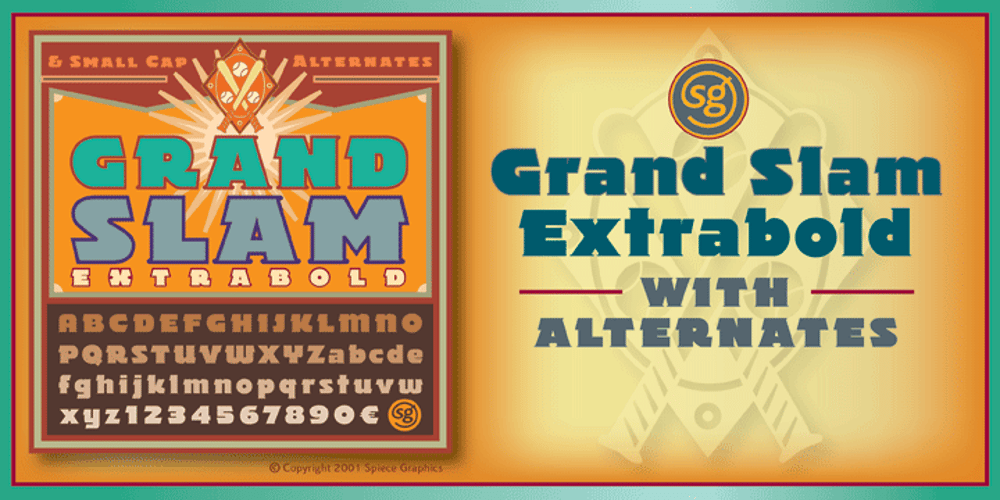
Grand Slam SG Font Family was designed by Jim Spiece and published by Spiece Graphics. Grand Slam SG contains 1 styles and family package options. Grand Slam is based on an old cardwriting style known as Poster Gothic. This dynamic letterstyle was used in the heyday of the Hollywood movie poster because of its powerful and snappy appeal. The face is of uniform thickness and made as wide as possible without interfering with legibility. Its vertical strokes seem to be thickened slightly where normal serifs would be. It is interesting to note that another group of tiny little serifs populate the entire design. Grand Slam comes with a complete set of alternates including small caps and small figures. A lowercase has been added for greater versatility. Grand Slam is now available in the OpenType format. In addition to small caps, lining figures, oldstyle figures, petite lining figures, and swashes, this expanded OpenType version contains some new stylistic alternates. These advanced features work in current versions of Adobe Creative Suite InDesign, Creative Suite Illustrator, and Quark XPress. Check for OpenType advanced feature support in other applications as it gradually becomes available with upgrades.